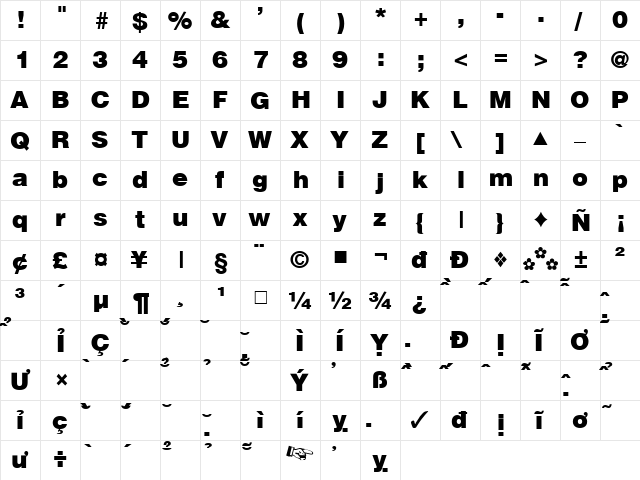
VNI-Swiss-Extreme Bold
Design Context for VNI-Swiss-Extreme Typeface
VNI-Swiss-Extreme is a composed and adaptable typeface that performs quietly and consistently across a wide range of design contexts. Its bold stroke weight gives it real presence on the page.
Pro Tip: Use VNI-Swiss-Extreme in both headline and body roles to test its range before committing to a single application.